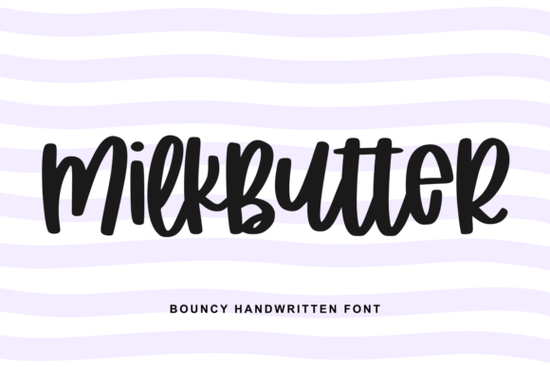
If you're looking for a handwritten font that feels genuine without sacrificing readability, Milkbutter Font is worth a closer look. It's one of those script fonts that manages to be both playful and practical tall letterforms, smooth curves, and a natural flow that doesn't try too hard. Whether you're designing a logo, writing out a quote, or putting together packaging, this font brings a warmth that connects with people.
Handwritten fonts are everywhere right now, but not all of them are easy to read. Milkbutter strikes a nice balance: it has that hand-lettered charm without making your audience squint. The strokes feel natural, not forced, which makes it work well for both digital and print projects.
What makes Milkbutter different from other handwritten fonts?
A lot of script fonts lean either too casual (hard to read) or too polished (lose the personal feel). Milkbutter sits in the middle. The tall letterforms give it a modern look, while the rounded edges keep it friendly. It's clean enough for a business card but still has that sweet, approachable tone that works great for invitations or social media graphics.
If you've used other script fonts before, you'll notice Milkbutter doesn't have those awkward connections between letters that make some handwritten fonts feel clunky. The flow is smooth, which matters when you're using it for longer phrases or quotes.
Where can you use Milkbutter Font in real projects?
Here are a few places where this font really shines:
- Branding and logos – especially for businesses that want a friendly, approachable vibe like bakeries, coffee shops, children's brands, or stationery shops.
- Social media graphics – quotes, announcements, and product posts look more personal with a handwritten touch.
- Invitations and cards – weddings, baby showers, birthday parties, or thank-you notes. The sweetness of Milkbutter fits these occasions naturally.
- Packaging and product labels – if you sell on Etsy or do print-on-demand, this font adds a handcrafted feel to your packaging.
- Craft projects and DIY designs – mugs, t-shirts, tote bags, wall art. Anything that benefits from a personal, handwritten look.
It pairs nicely with simpler sans-serif fonts for contrast. Use Milkbutter for the headline or main message and a clean sans-serif for body text. That combination keeps your design balanced and easy to read.
How does Milkbutter compare to other script fonts you might already know?
If you browse the script fonts category, you'll find plenty of options, but each has its own personality. Groovy Font has a retro, fun feel, while Better Together Font leans more romantic and connected. Little Love Font is sweet and tender, perfect for intimate projects. Daddy Font brings a warm, friendly energy, and Hello Honey Font has that cheerful, sunny tone.
Milkbutter sits somewhere in the middle of these. It's not as retro as Groovy, not as romantic as Better Together, and not as ultra-sweet as Little Love. Instead, it offers a more everyday, usable kind of friendliness. Think of it as the font you reach for when you want handwritten warmth but still need your text to look professional and clean.
What kind of projects is Milkbutter not ideal for?
No font works for everything, and Milkbutter is no exception. Because of its playful, cheerful style, it might not be the best choice for:
- Corporate or legal documents – it's too casual for formal reports or contracts.
- Long body text – handwritten fonts work best for short to medium-length text. For paragraphs, stick to a readable serif or sans-serif.
- Serious or luxury brands – if your brand needs to feel sleek, minimalist, or high-end, Milkbutter's sweetness might not match that tone.
That said, for the right project, it's a solid choice. If you're designing for a children's brand, a bakery, a creative small business, or a personal project, Milkbutter delivers exactly what you need: warmth, readability, and a genuine handwritten feel.
A practical tip before you download
When you're testing Milkbutter, try it in different sizes and on different backgrounds. Handwritten fonts often look best at medium to large sizes where the curves and letterforms have room to breathe. Also, experiment with color soft pastels, warm neutrals, and bright accents all work well with this font's friendly personality.
If you're a print-on-demand seller, consider using Milkbutter for short phrases on products like mugs, t-shirts, or phone cases. Keep the text short one to five words and let the font do the heavy lifting. Pair it with a simple graphic or icon, and you've got a design that feels personal and polished at the same time.
Quick checklist before you start your next project
- Test Milkbutter at different sizes to see where it reads best.
- Pair it with a clean sans-serif font for contrast.
- Use it for short to medium-length text only.
- Avoid using it for formal or corporate projects.
Milkbutter Font is one of those script fonts that's easy to overlook at first, but once you start using it, you'll find yourself reaching for it again and again. It's simple, readable, and genuinely warm exactly what a good handwritten font should be.